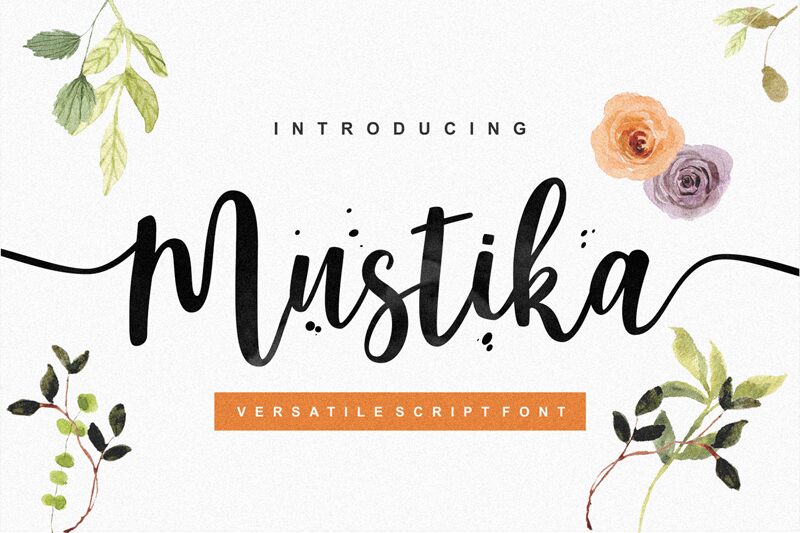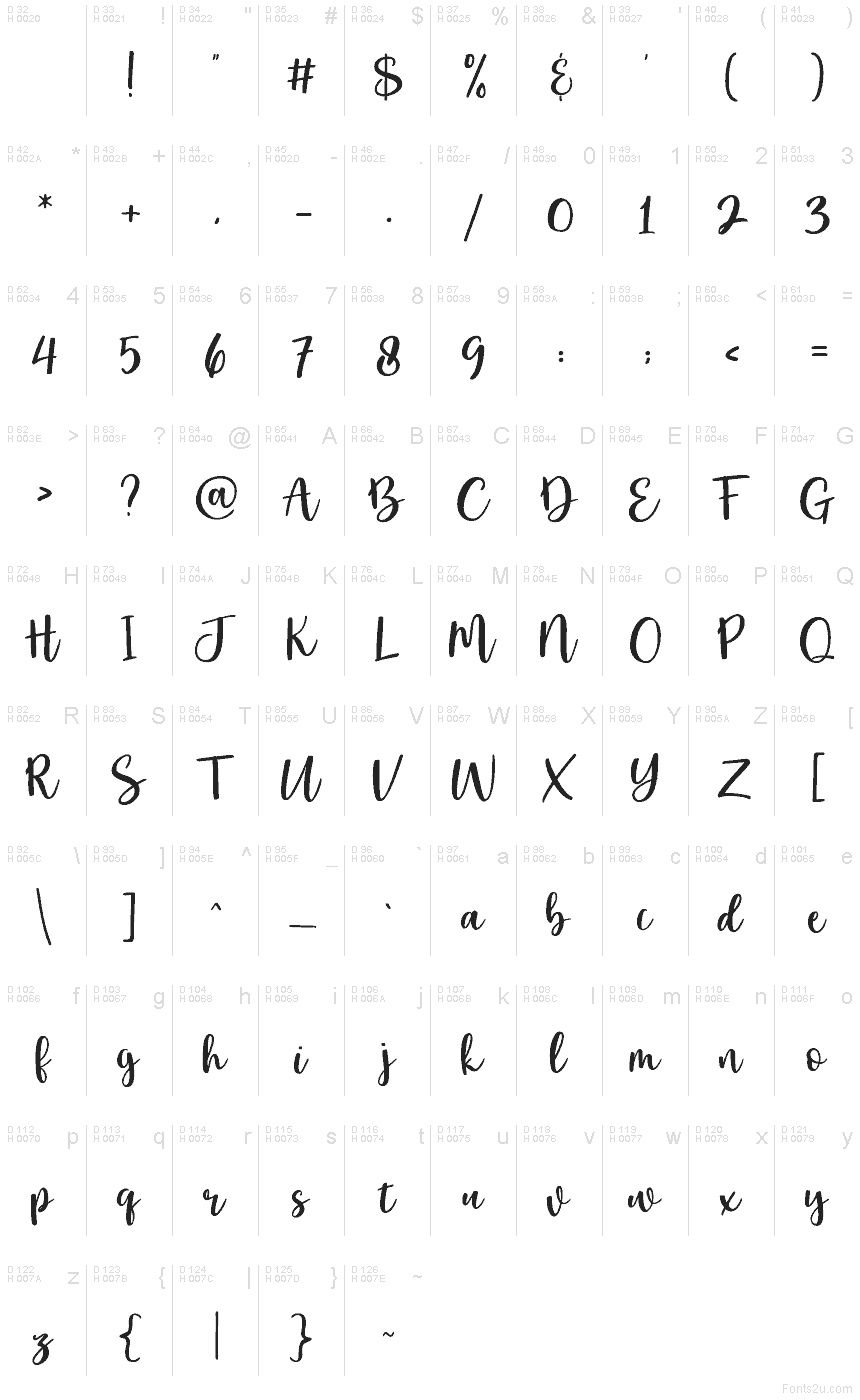
Mustika Alternate
Mustika Alternate font by Letternun is a free handwritten script typeface that captures the look of quick, confident brush lettering without sacrificing clarity. Part of the Mustika family, its smooth, looping strokes and slightly bouncy baseline feel warm and personal, yet the spacing stays clean enough to read at a glance. The inky, rounded forms give every word a friendly sway, making text feel like it was written just for the viewer.
Using Mustika Alternate, your titles and short phrases shine on wedding signage, logos, product packaging, Instagram posts, quote graphics, event flyers, and handmade shop branding. This free font loves generous sizes where its curves can breathe, while a simple sans serif underneath handles body text. Pair it with a light, airy sans in all caps to frame Mustika’s flowing script and keep layouts looking modern and polished.